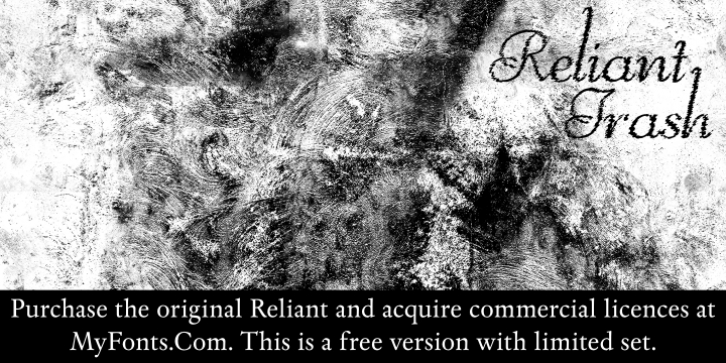
Reliant Trash Free version, by Intellecta Design
ABOUT THE ORIGINAL FONT
Reliant is a free interpretation of the classic design from fonts “BernhardSchoenschriftâ€, originally designed by Lucien Bernhard and “Libertyâ€, designed by W.T. Sniffin for ATF in 1927, following the original designs from Lucien Bernhard.
This enhanced OpenType version has complete sets in Greek and Latin alphabet with Central European, Vietnamese, Baltic and Turkish complete resources with all diacritic signs and punctuation marks plus extra characters belonging this ranges.
We added a extensive set of ligatures (stylistic and contextual alternates plus discretionary ligatures) providing a lot of letterform variations that make your design really special, plus swashes and tails ornaments (to artistic increase any letter of this font) more fractions and number ligatures (a strange idea from Iza W). Over 800 glyphs which you have total access using software such as InDesign, Illustrator, QuarkXpress and others.